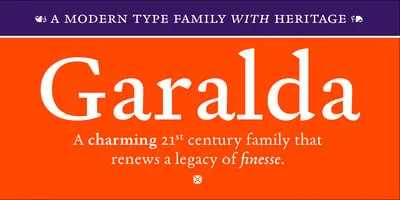
Garalda Font
Garalda Font is perfect for academic publishing houses, classical literature reproductions, university press materials, scholarly journal layouts, prestigious law firm communications, historical society publications, traditional library signage, and distinguished educational institution branding.
Garalda Font is exciting because it represents the pinnacle of scholarly typography with its meticulously crafted letterforms that honor centuries of European printing tradition while embodying the intellectual rigor of academic excellence. The typeface captures the timeless dignity of classical scholarship and the enduring beauty of humanist letterforms, creating an immediate sense of learned authority and cultural refinement that resonates with readers who value intellectual depth and typographic sophistication.
Garalda Font family includes Light, Regular, Medium, Bold, and Black weights, each with elegant italic variants and comprehensive scholarly ligatures, offering designers authoritative typography tools for creating communications that celebrate the highest standards of academic publishing and intellectual discourse.
Whether you're developing a prestigious academic institution's brand identity, designing scholarly publication materials, or creating distinguished cultural content, Garalda Font provides unmatched scholarly authenticity and intellectual appeal. This masterful typeface perfectly balances classical typography principles with contemporary publishing requirements, ensuring your communications resonate with educated audiences who appreciate both historical continuity and modern scholarly standards. The font's refined proportions and scholarly rhythm make it particularly effective for institutions that emphasize intellectual excellence, cultural preservation, and the kind of rigorous scholarship that advances human knowledge across generations. Academic publishers consistently choose Garalda Font when projects require typography that communicates scholarly authority, cultural sophistication, and the kind of intellectual seriousness that defines the world's most respected educational institutions, making it indispensable for academic branding, scholarly publishing, and any application where classical typography can honor the magnificent tradition of learning and the dedicated scholars who preserve and advance human knowledge through careful research, thoughtful analysis, and the written word that continues to enlighten minds and shape our understanding of the world.